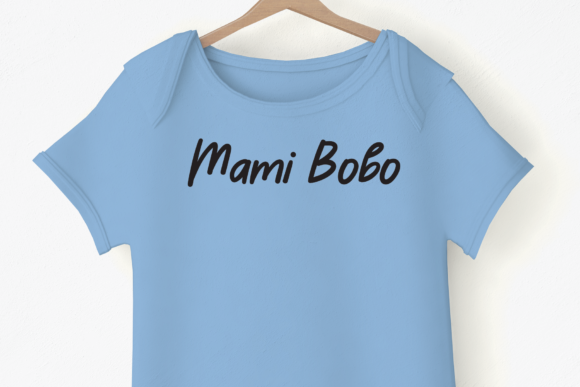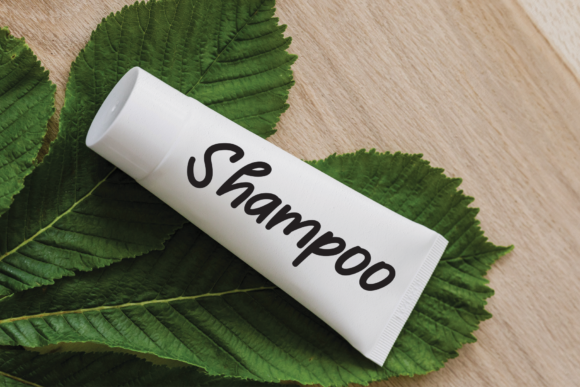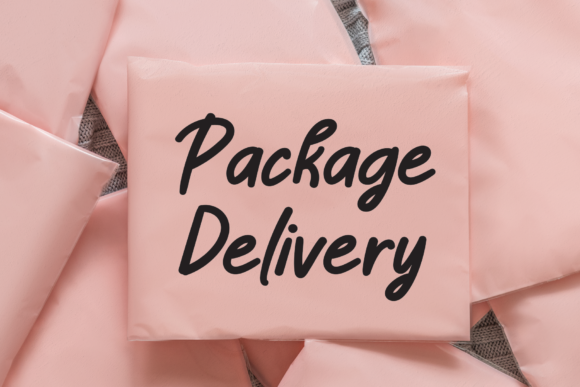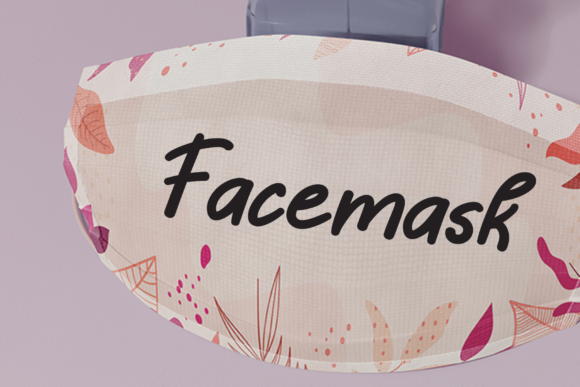
Introduction to Pink Darling Font
As a designer, there’s nothing quite like the thrill of discovering a new font that perfectly captures the essence of your creative project. For me, that moment came when I stumbled upon the Pink Darling Font – a beautiful and cursive handwritten font that instantly added a touch of elegance to any design.
With its high-quality characters and modern flair, the Pink Darling Font is a valuable addition to any designer’s toolkit. Whether you’re working on a wedding invitation, social media post, or product packaging, this font is sure to bring a personal touch to your design. And the best part? It’s available for free download, making it an accessible design resource for creatives of all levels.
What sets the Pink Darling Font apart is its versatility – from labels to watermarks, invitations to stationery, this font is perfect for any project that requires a handwritten touch. With a transparent background option, you can easily incorporate it into your designs without worrying about distracting backgrounds. In this article, we’ll delve into the world of the Pink Darling Font and explore its many uses and benefits for designers.
Key Features of Pink Darling Font
- High-quality design for creative projects, perfect for adding a touch of elegance and sophistication.
- Transparent background, allowing for seamless integration with any design element or image.
- Unique and playful script style, ideal for titles, headings, and other creative typography applications.
Honest Review: Pink Darling Font
I recently had the chance to experiment with the Pink Darling Font for a creative project, and I must say, it’s a great addition to my design resource library. The font is a free download, which is always a plus, and it’s available in a variety of formats, including a transparent background, making it easy to work with.
What works well: ✨ The font has a unique, whimsical feel that’s perfect for feminine or vintage-inspired designs. The high-quality design ensures that it looks great at various sizes, from headings to body text. It’s also incredibly versatile, suitable for a wide range of creative projects, from branding to editorial content.
Here are some key features that make the Pink Darling Font stand out:
- Unique, hand-drawn design
- High-quality design for clear readability
However, there are a few limitations: ⚠️ The font is not as extensive as some other font families, with only a limited number of styles and weights available. Additionally, the design may not be suitable for very modern or minimalist designs, as it has a more playful, ornate feel.
Overall, I’m impressed with the Pink Darling Font, and I think it’s a great addition to any designer’s library. It’s perfect for designers looking for a unique, high-quality font for their creative projects.
Tips for Getting the Most Out of Pink Darling Font
Experiment with different font sizes and styles to achieve the desired effect. Combine the Pink Darling Font with other design elements, such as images and graphics, to create a unique and eye-catching design. Use the font’s transparent background to create a cohesive and professional-looking design.
The Pink Darling Font is ideal for creative projects, such as wedding invitations, party decorations, and social media graphics. The font’s high-quality design and transparent background make it a valuable design resource for designers and non-designers alike.